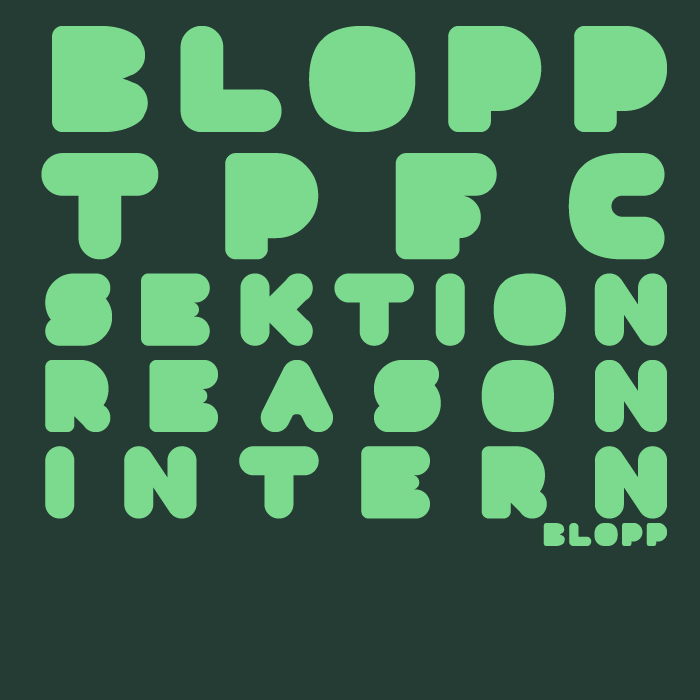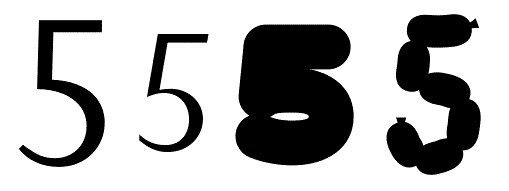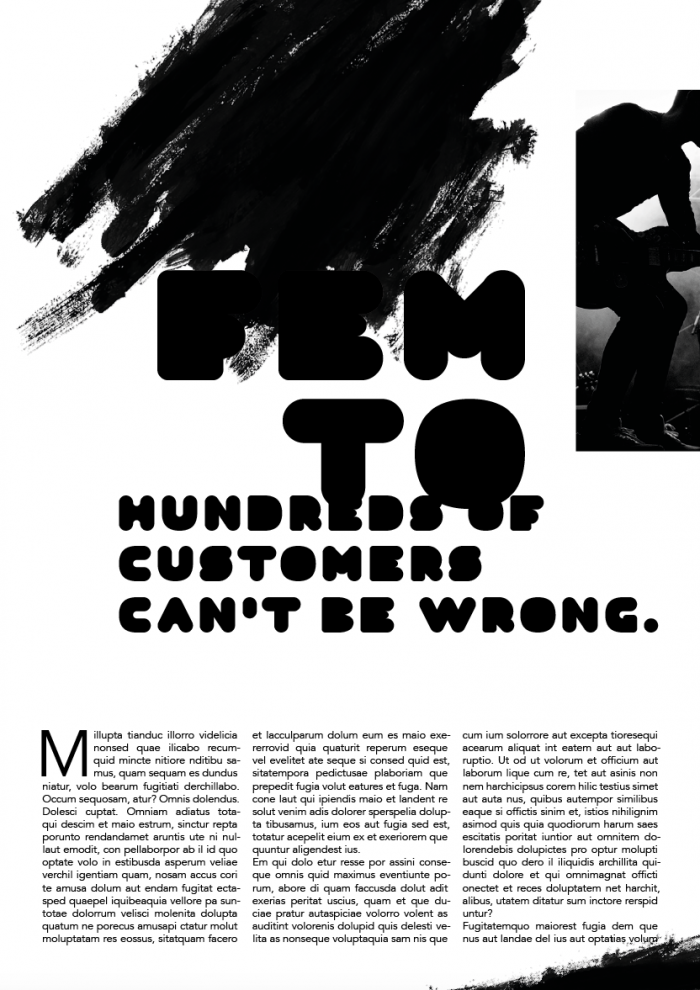
A font made of sausages ;) :) Looks very 'comforting'. Perfect for invitations to a barbecue? It would make great stencils, too.
Cool! But in my opinion, you should do another form 5, more familiar (Perpetua, Fun City with cyrillic, VLNL Wurst). And the letters P, R and F can stand on a more rounded legs. Also I shall pay your attention to my comment here: https //fontstruct.com/fontstructions/show/1392235/table-glass-sans. Can you answer in private messages if you prefer?
This is excellent fontstruction!
It sure is. So accomplished. And technically advanced. I can't figure out how it's done. Well done.
Diagonals meet curves, fabulous!
How did you do the hot-dog 5, sychov?
OMG, "Blopp" looks like my failed vectorizations!^^
Some updates, magazine article faked preview. It really is a display typeface. :-)
the Ů's and the capital Ÿ are missing accents...